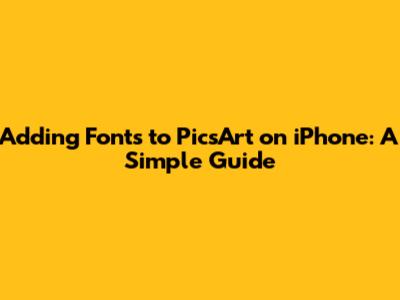
- Express Your Creativity: Using a wider variety of fonts means you can match the tone and style of your project perfectly. Whether you're going for playful, elegant, or edgy, the right font can make all the difference.
- Stand Out from the Crowd: Everyone's using the same default fonts! Adding custom ones helps your work look different and more professional. Think of it as adding your signature flair to every design.
- Enhance Your Branding: If you're using PicsArt for business or social media, consistent branding is key. Custom fonts let you use your brand's specific typography, making your content instantly recognizable.
- Improve Readability: Certain fonts are just easier to read, especially for specific applications like captions or posters. Choosing the right font can make your message clearer and more impactful.
- Open PicsArt: Launch the PicsArt app on your iPhone.
- Start a New Project: Tap the plus (+) icon to start a new project. Choose a photo or background to work with.
- Add Text: Tap the "Text" tool in the bottom menu.
- Select Your Font: Type your text. In the font selection menu, scroll through the options. You should see your newly installed font listed along with the default PicsArt fonts. It might be in a separate section labeled “My Fonts” or similar.
- Customize Your Text: Adjust the size, color, spacing, and other properties of your text to get the perfect look.
- Save and Share: Once you're happy with your design, save it to your phone or share it directly to social media.
- Font Doesn't Appear in PicsArt:
- Make sure the font is properly installed: Double-check that you've followed all the steps in the installation process using iFont or another font installation app.
- Restart PicsArt: Sometimes, the app just needs a little nudge. Close PicsArt completely and reopen it to see if the font appears.
- Restart your iPhone: If restarting PicsArt doesn't work, try restarting your entire iPhone. This can clear up any temporary glitches.
- Font File is Corrupted:
- Download the font again: Sometimes, font files can get corrupted during download. Try downloading the font from the source again.
- Try a different font file: If you're still having trouble, try downloading a different version of the font or a similar font from another source.
- iFont Isn't Working:
- Update iFont: Make sure you're using the latest version of iFont. Check the App Store for updates.
- Reinstall iFont: If updating doesn't work, try deleting iFont and reinstalling it from the App Store.
- Try a different font installation app: If iFont is consistently giving you problems, try another font installation app like AnyFont.
- Consider Your Project's Tone: The font should match the overall tone and style of your project. A playful, handwritten font might be perfect for a birthday invitation, but it wouldn't be suitable for a professional presentation.
- Think About Readability: Choose fonts that are easy to read, especially for body text or captions. Avoid overly decorative or complex fonts that can strain the eyes. Clear communication is key!